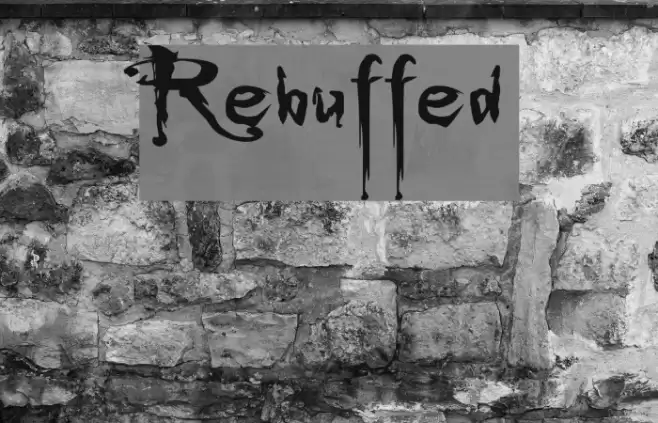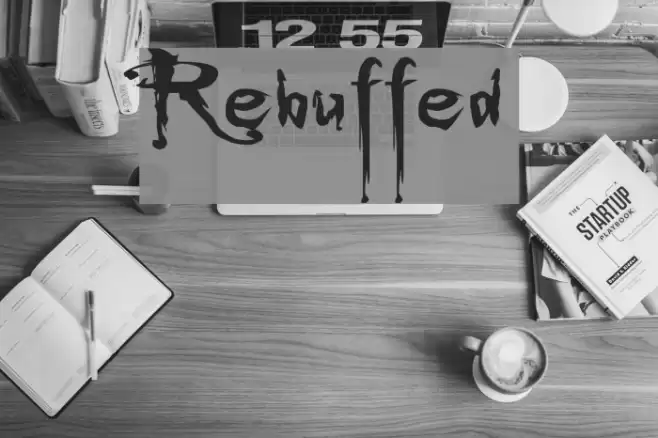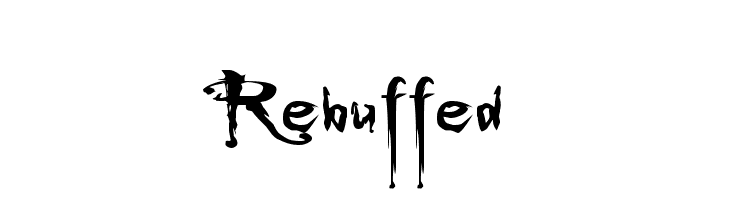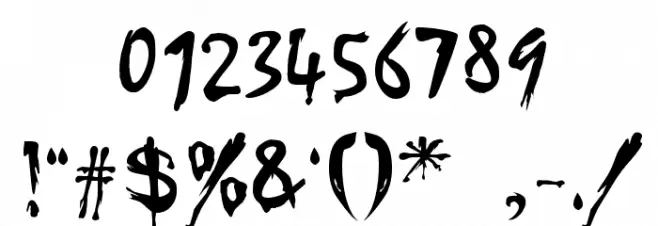
Rebuffed Font
Rebuffed Description
This font features a dramatic and edgy style, characterized by sharp, jagged edges and a dripping effect reminiscent of ink or paint. The uppercase and lowercase letters maintain a consistent theme, with exaggerated strokes and a slightly chaotic appearance. Numbers and special characters follow the same design principles, adding to the overall cohesive look. The font's unique style makes it stand out, perfect for projects that require a bold and unconventional aesthetic.
A dramatic, edgy font with sharp, jagged edges and a dripping effect from Drippy fonts.
- Proposed Projects: Ideal for horror-themed designs, Halloween posters, edgy album covers, or any project needing a bold, unconventional look.